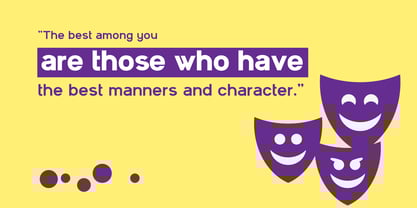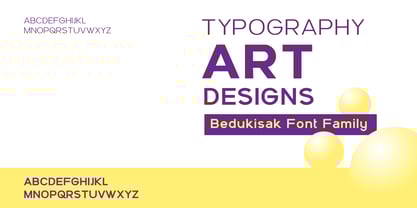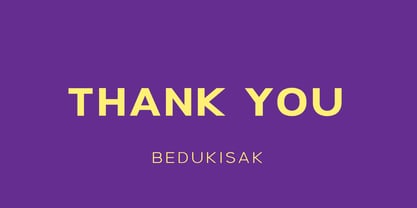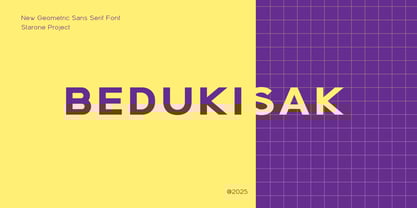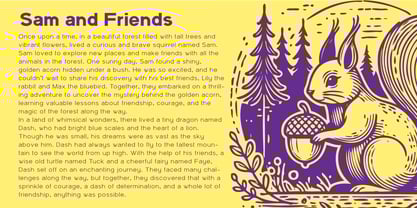
Bedukisak
von Starone Project
Die Schriftfamilie Bedukisak wurde von Mohammad Teguh entworfen und von Starone Project veröffentlicht. Bedukisak enthält 3 Stile und Familienpaketoptionen. Mehr über diese Familie
Bedukisak is San serif Font with geometrical shape. It can be used for Logo, Sign Display and any others needs.
Designer: Mohammad Teguh
Foundry: Starone Project